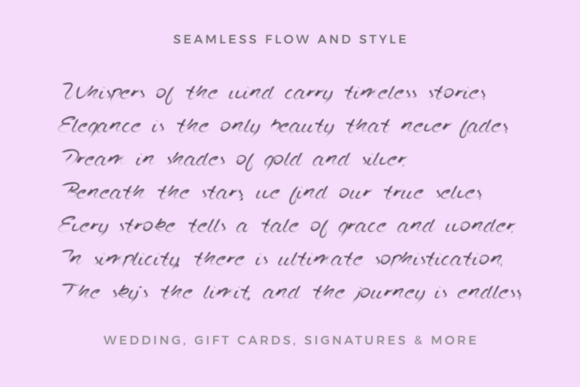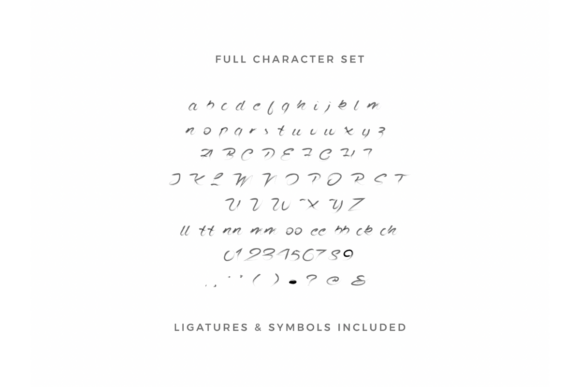
Introduction to Emerson Font
Introducing Emerson – a standalone in the realm of typography, characterized by its uniquely handwritten and handlettered style.
This appealing script font carries an air of romance and elegance, beautifully capturing the charm of handwritten expressions With Emerson, infusing an authentic handwritten touch into your designs will be as effortless as it is captivating.